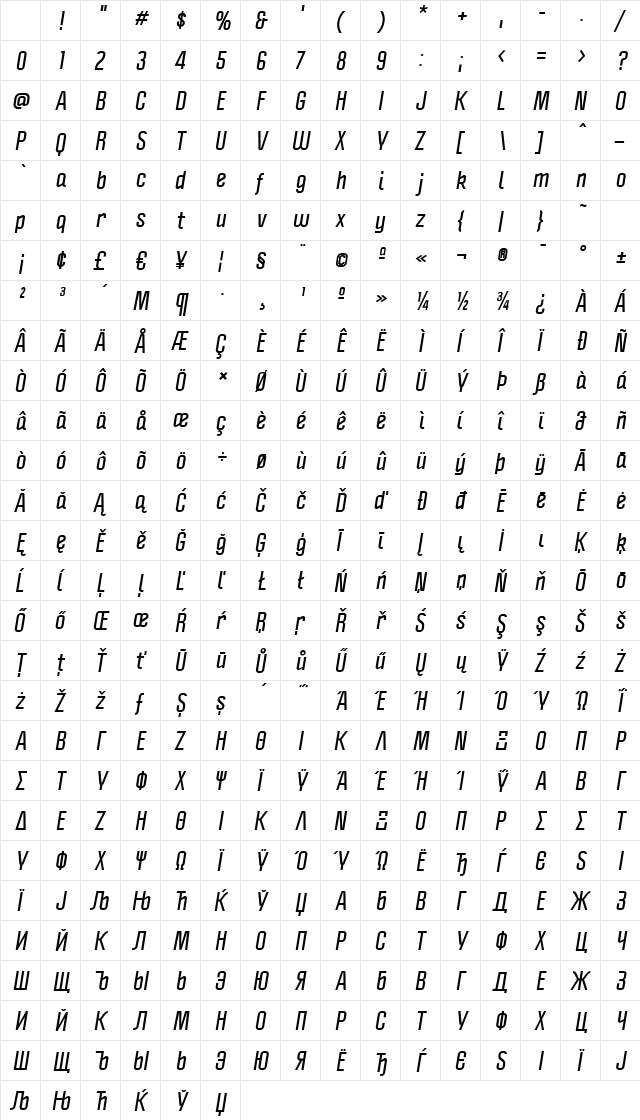
Complete Politica Bold Italic glyph index. Displaying only characters natively supported by Politica Bold Italic font.
Politica is a composed and adaptable typeface that performs quietly and consistently across a wide range of design contexts. The slanted form adds forward momentum and visual energy. Its bold stroke weight gives it real presence on the page.